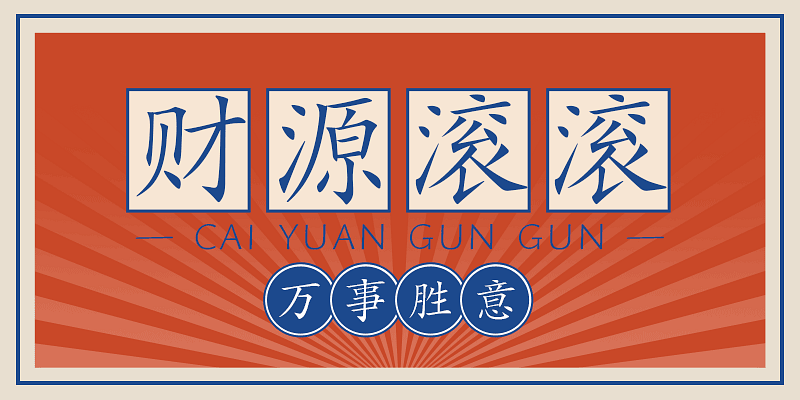
HelloFont ID Dian Kai Font Free Download is a modern, stylish serif typeface designed to offer both clarity and elegance. With its unique strokes and refined curves, this font is perfect for projects such as branding, editorial design, website content, and invitations that require a professional yet creative feel.
HelloFont ID Dian Kai Font is highly versatile, working well for both large headlines and smaller text applications. It integrates seamlessly with design tools like Adobe Illustrator, Photoshop, Figma, and Canva, making it a great choice for both print and digital media.